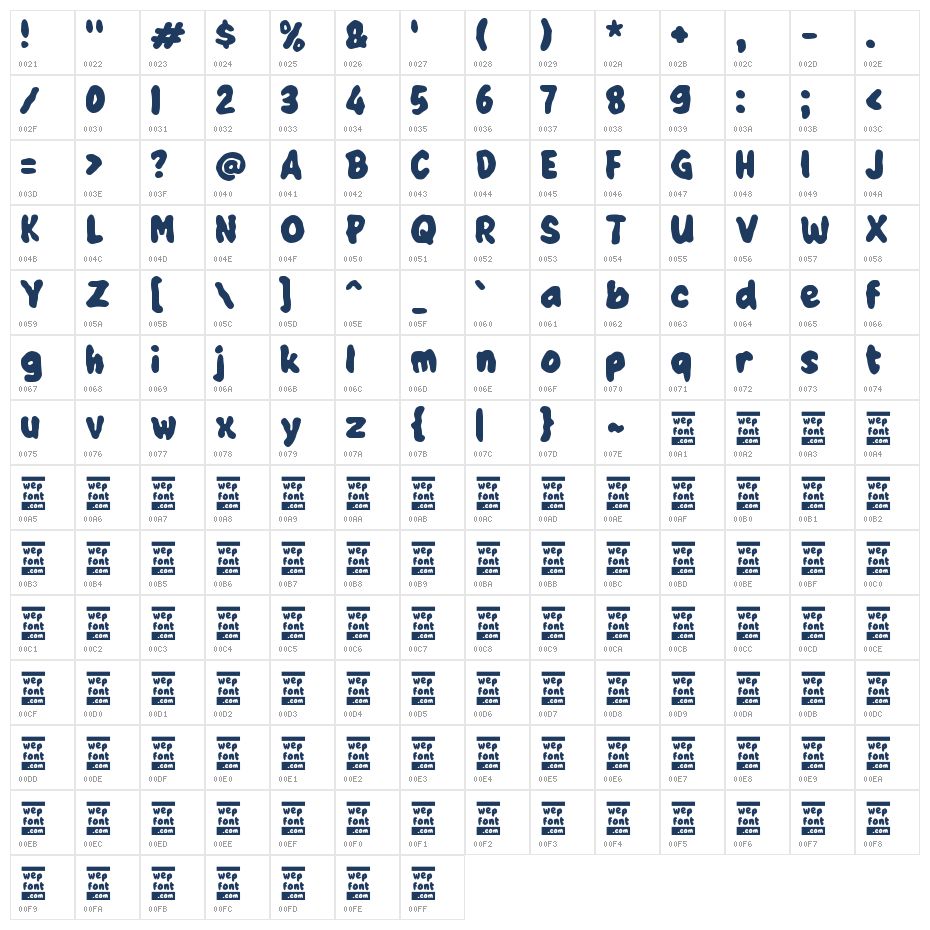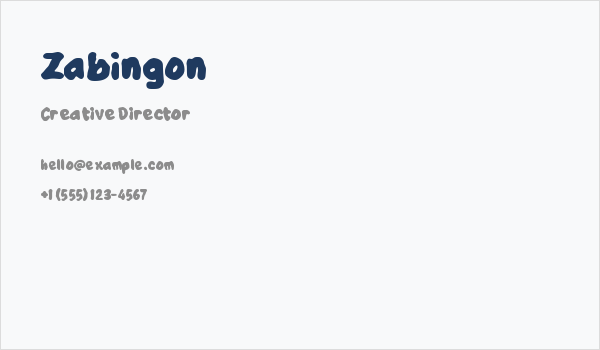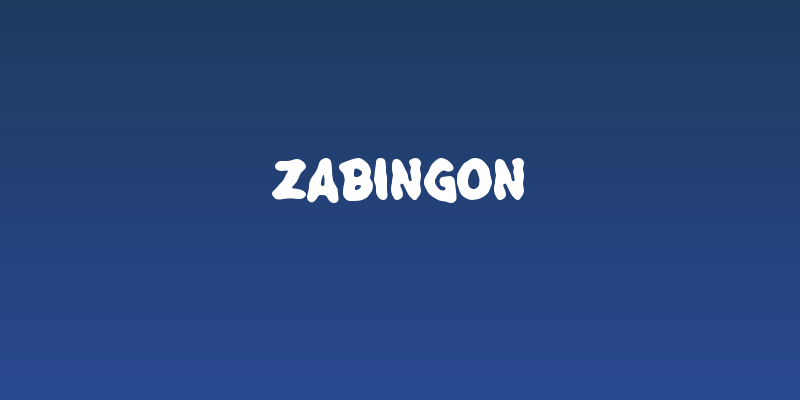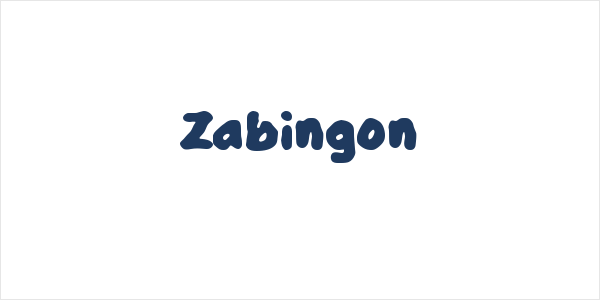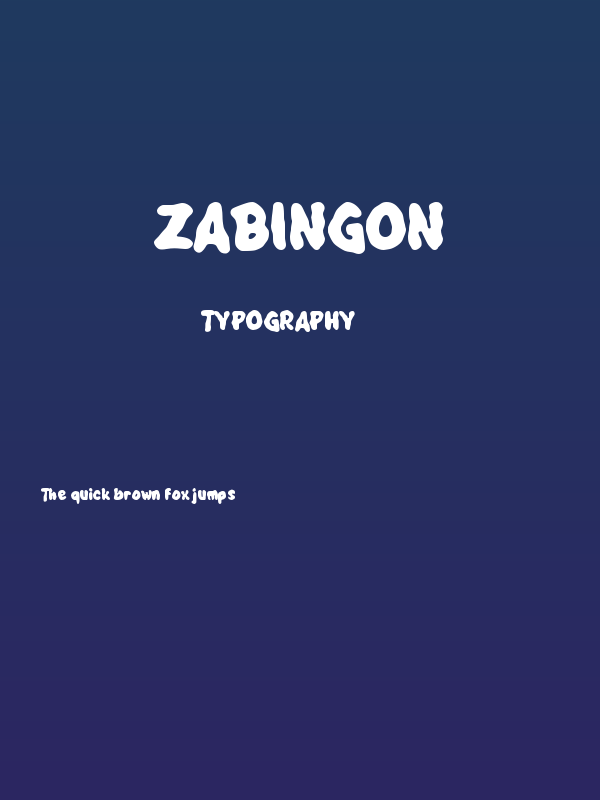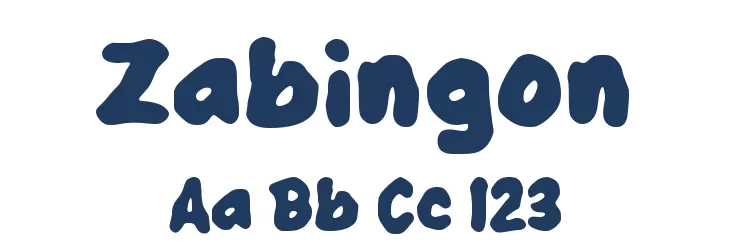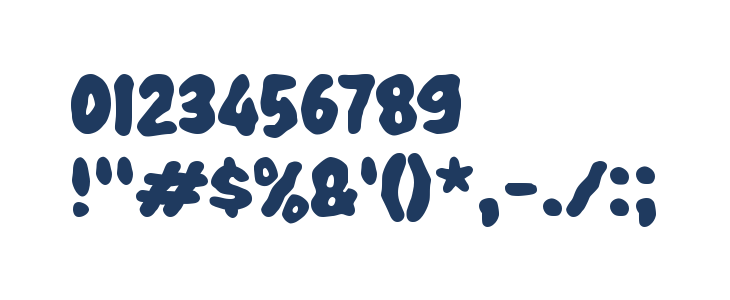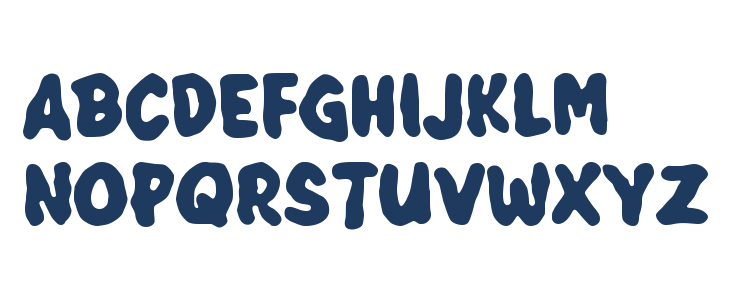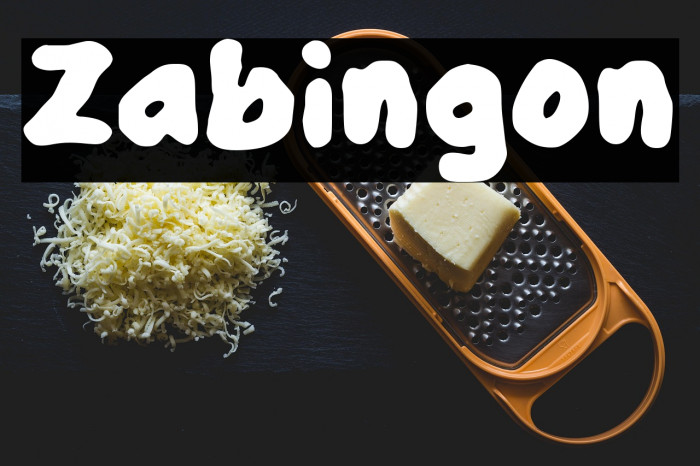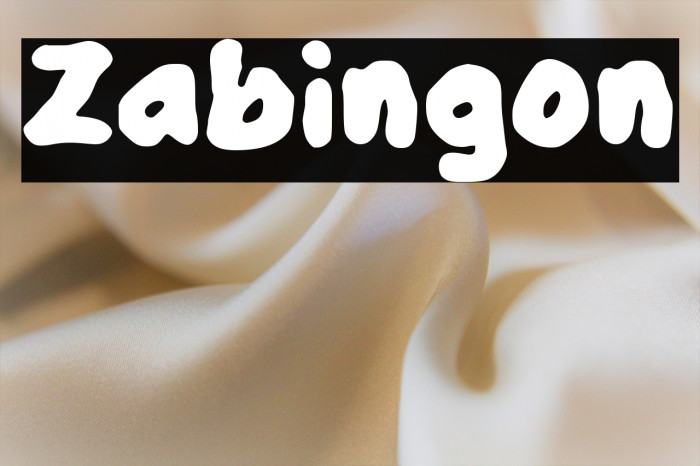
Zabingon Font
Zabingon Description
A playful, bold, and rounded display font with a bubbly and informal style.
| Overall Style | Playful, Casual, Rounded |
| Use Case | Headlines, Logos, Posters, Packaging |